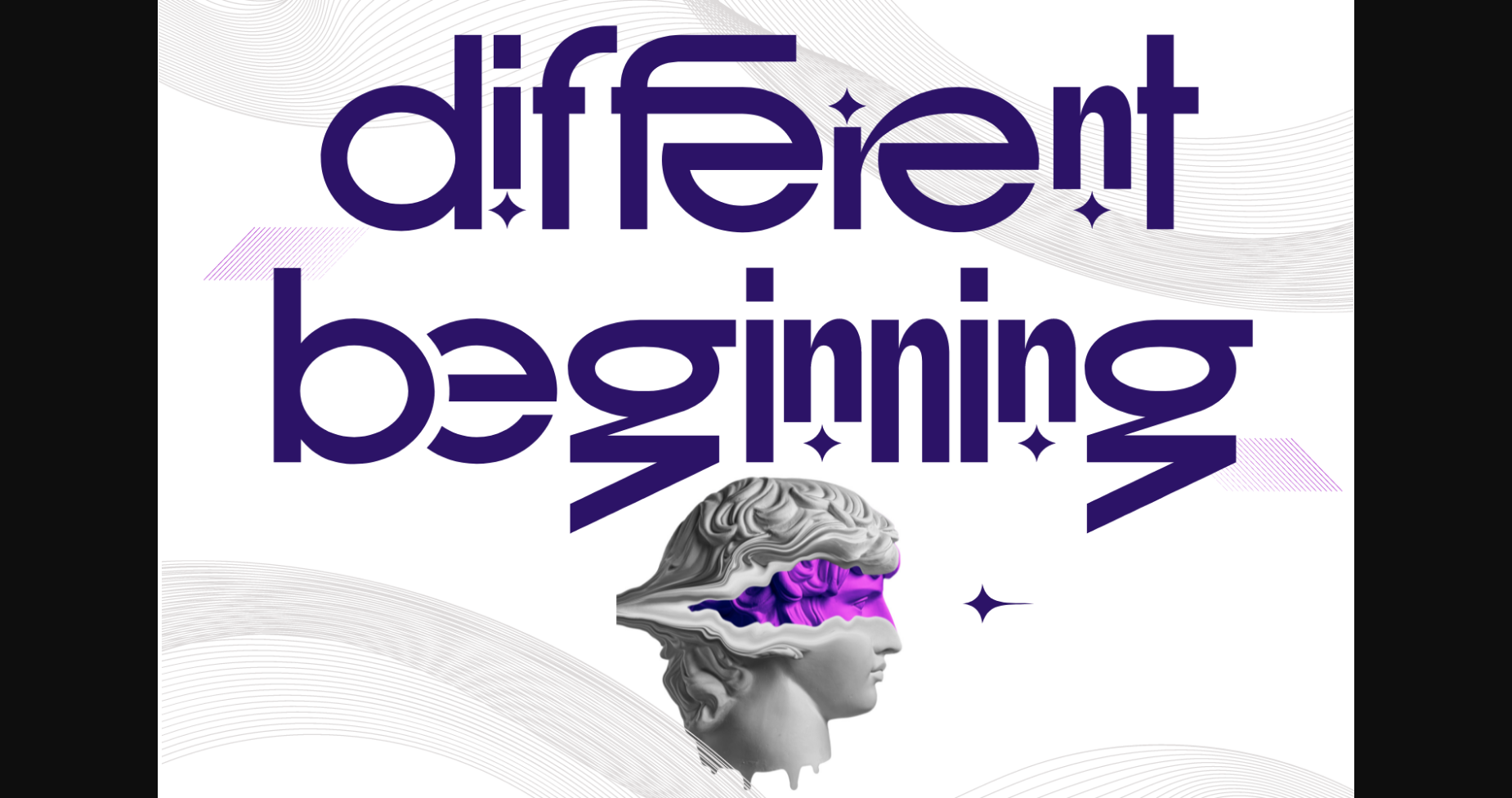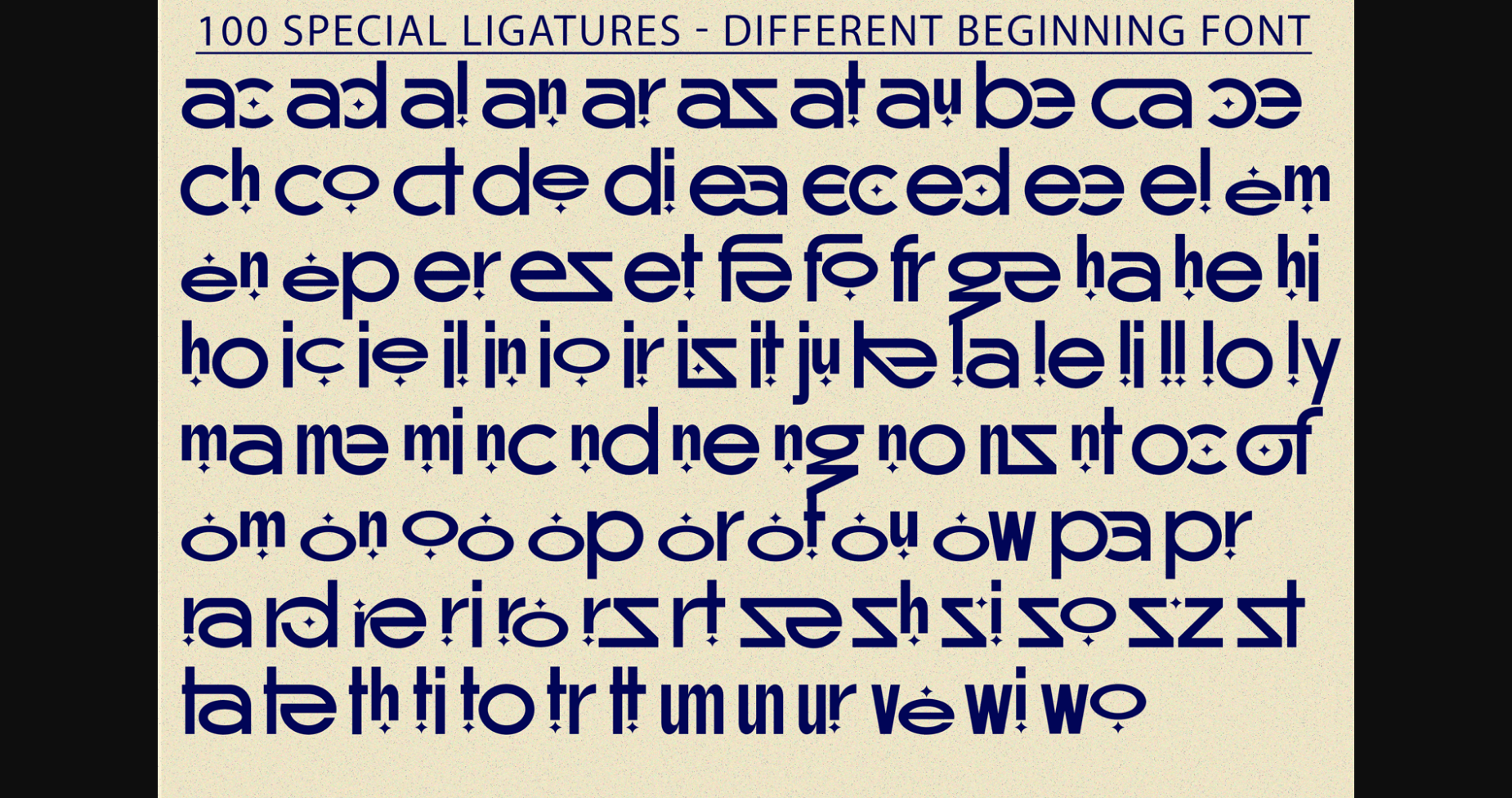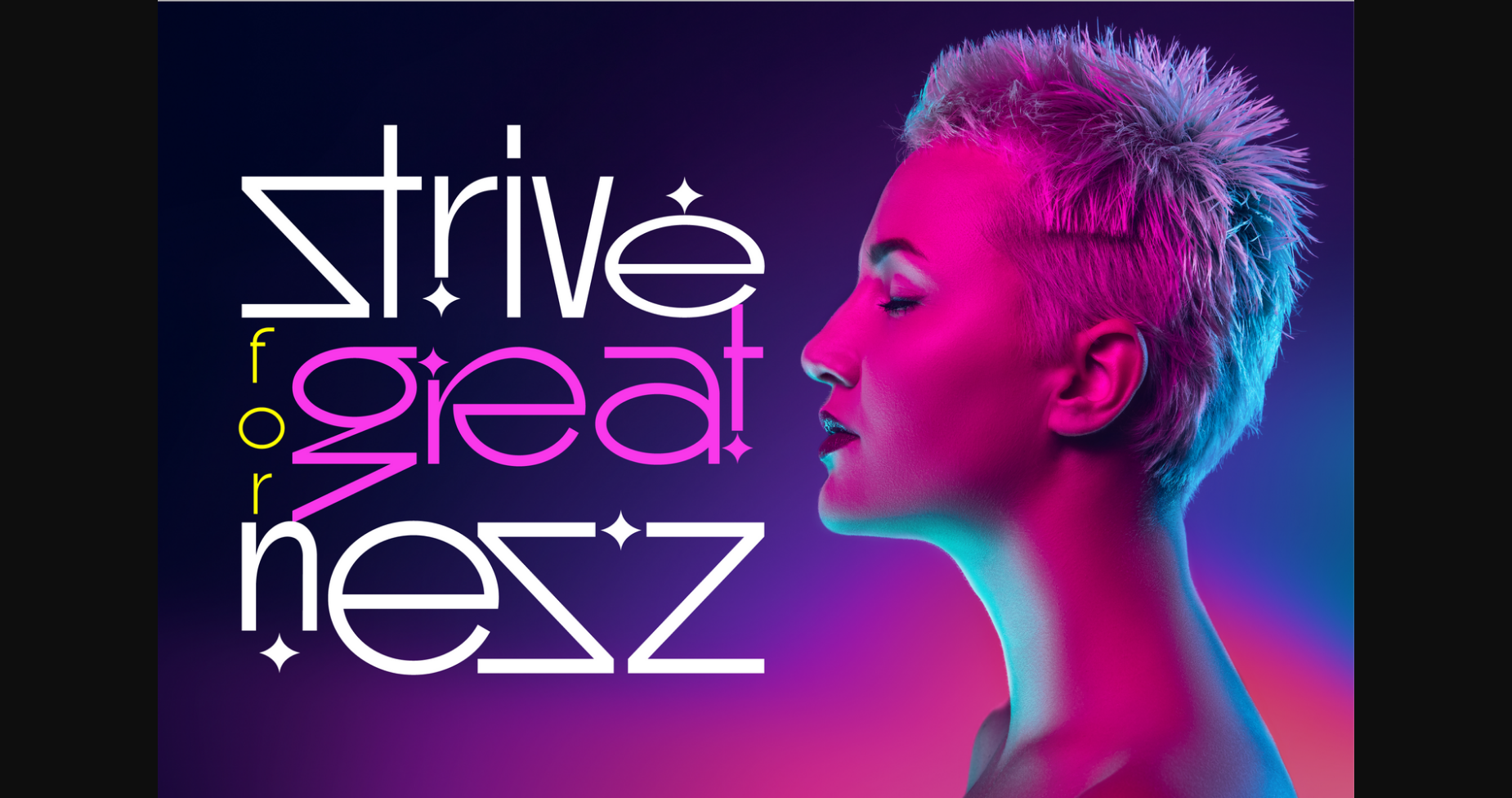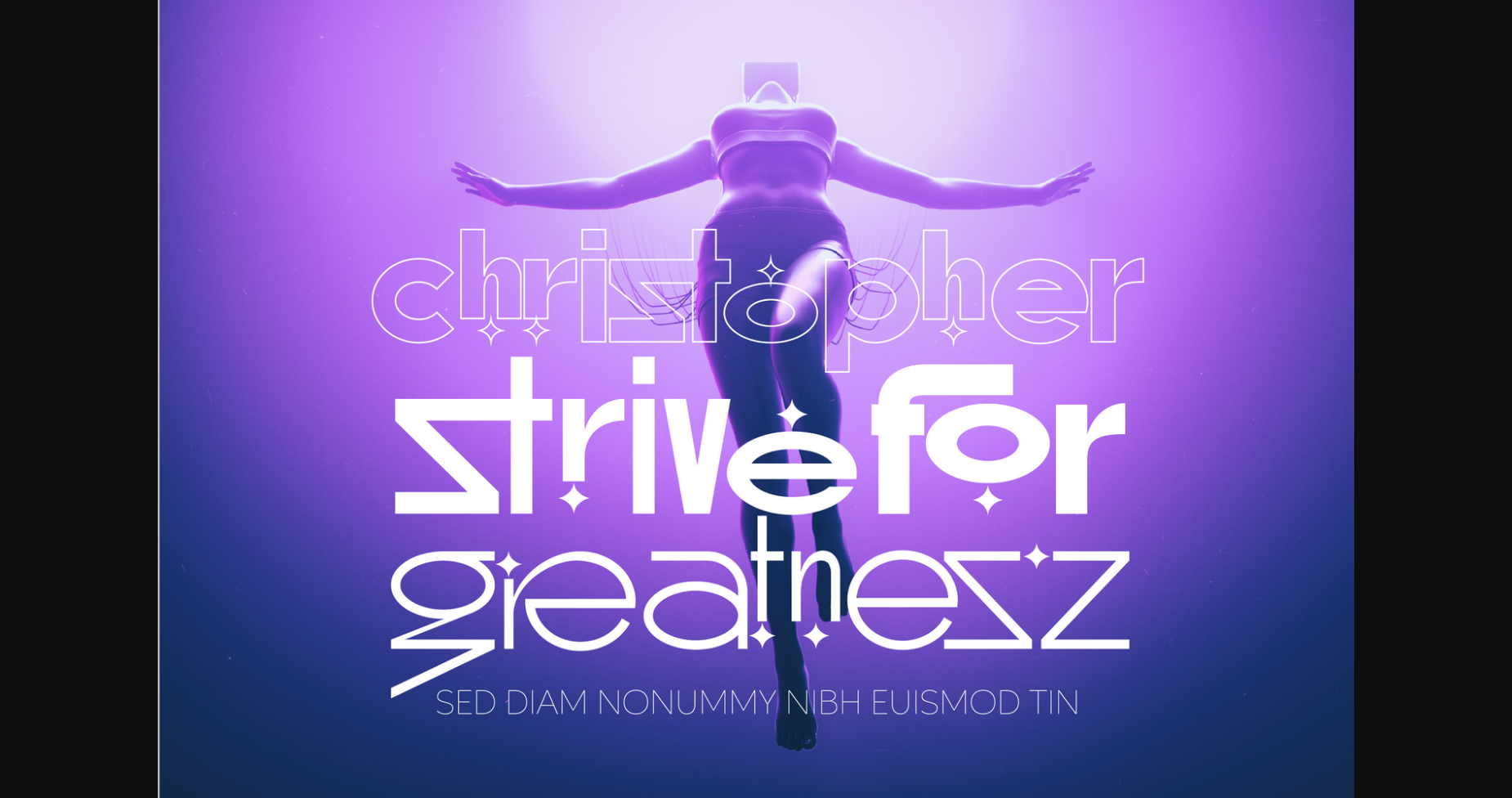
About Different Beginning Font
Different Beginning Font is a geometric sans serif that pushes the boundaries of modern design and brings a touch of enchantment to your projects. This unique geometric typeface is a true alchemy of creativity and precision, combining sharp angles and clean lines to create a visually striking composition. Perfect for headlines, logos, posters, and branding materials, GlideSans demands attention and delivers a strong visual impact.